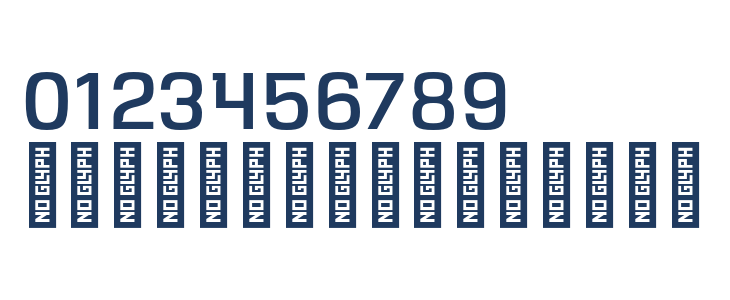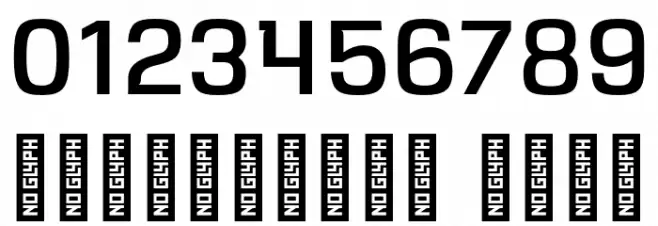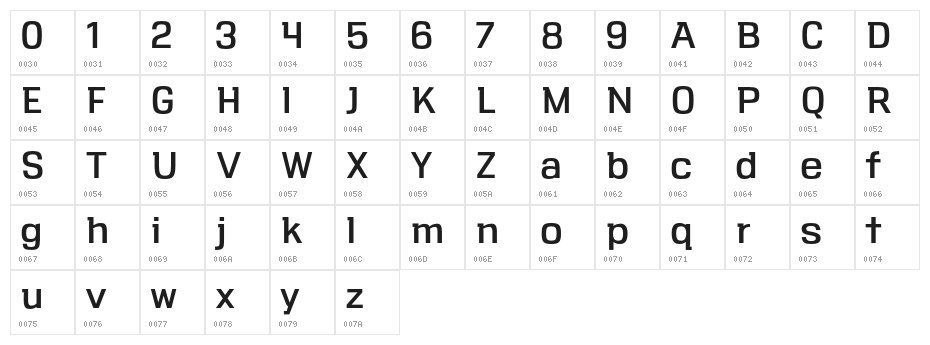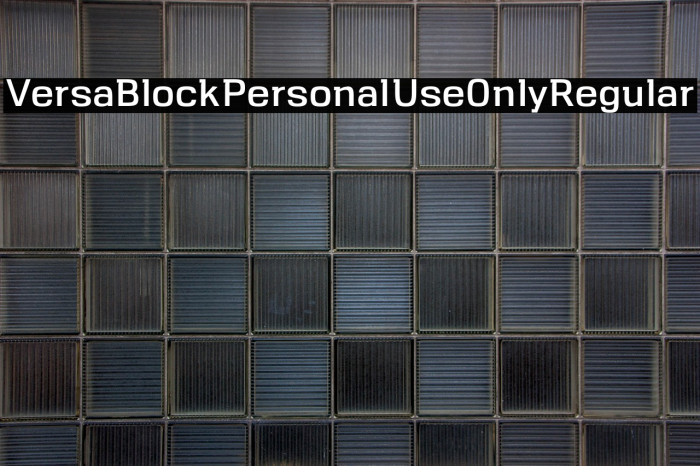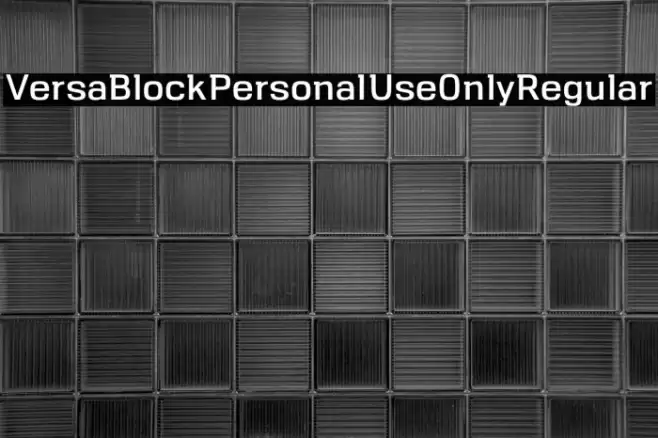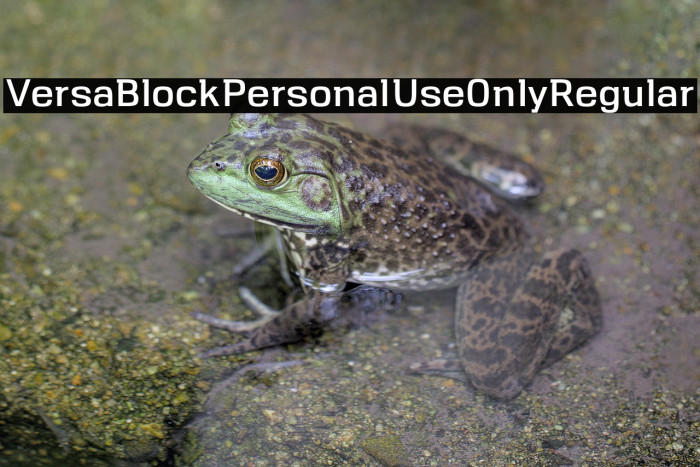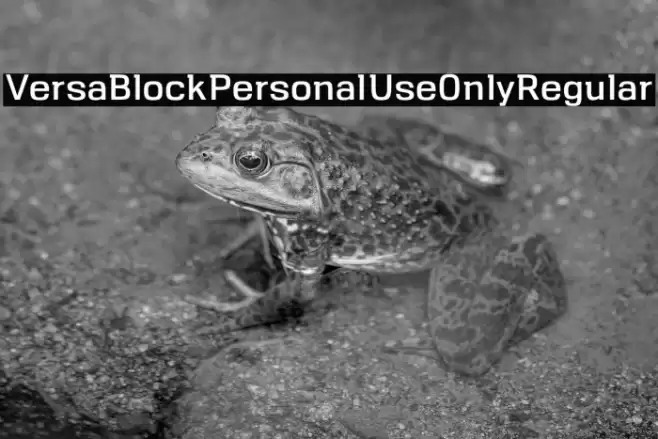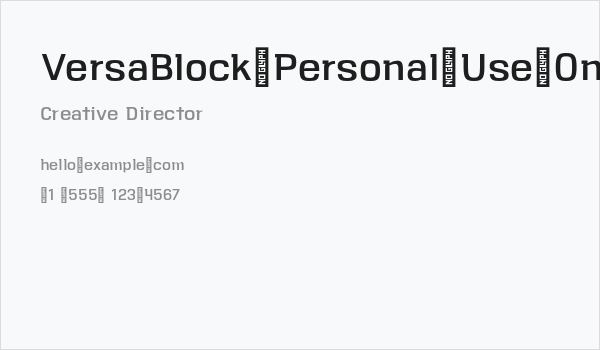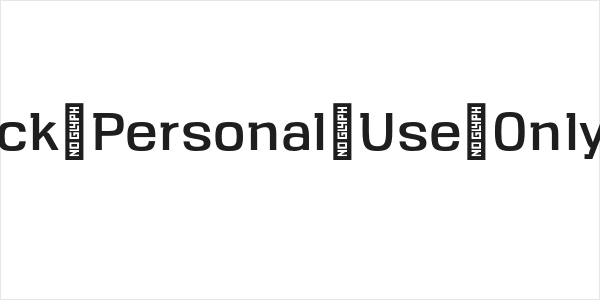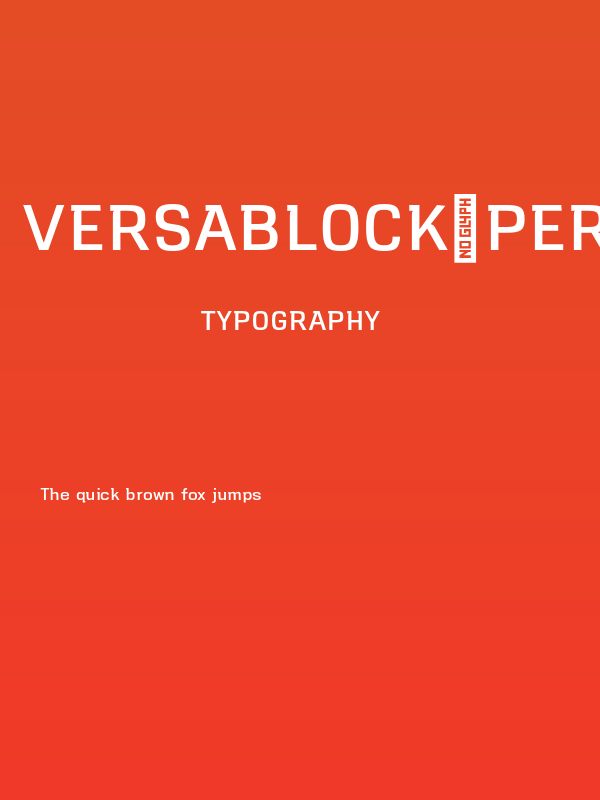
VersaBlock-Personal-Use-Only-Regular Font
VersaBlock-Personal-Use-Only-Regular Description
This font presents a modern and clean aesthetic with a geometric sans-serif style. The characters are well-proportioned, featuring consistent stroke widths that contribute to a uniform appearance. The uppercase and lowercase letters maintain a balanced design, while the numerals are clear and easy to read. The absence of serifs gives it a sleek and contemporary look, making it suitable for various digital and print applications. The font's simplicity and clarity make it highly legible, even at smaller sizes.
Use CaseHeadlines, Body text, Logos
Proposed ProjectsIdeal for branding, web design, advertising, and editorial layouts where clarity and modernity are desired.